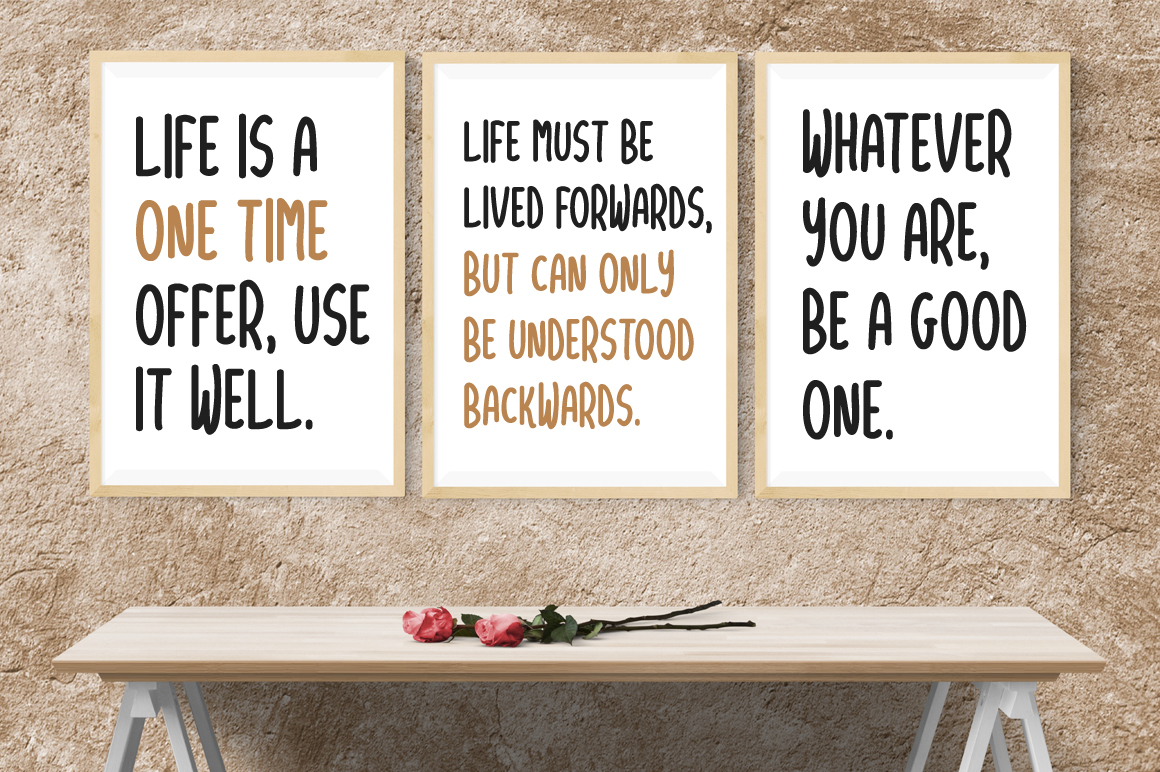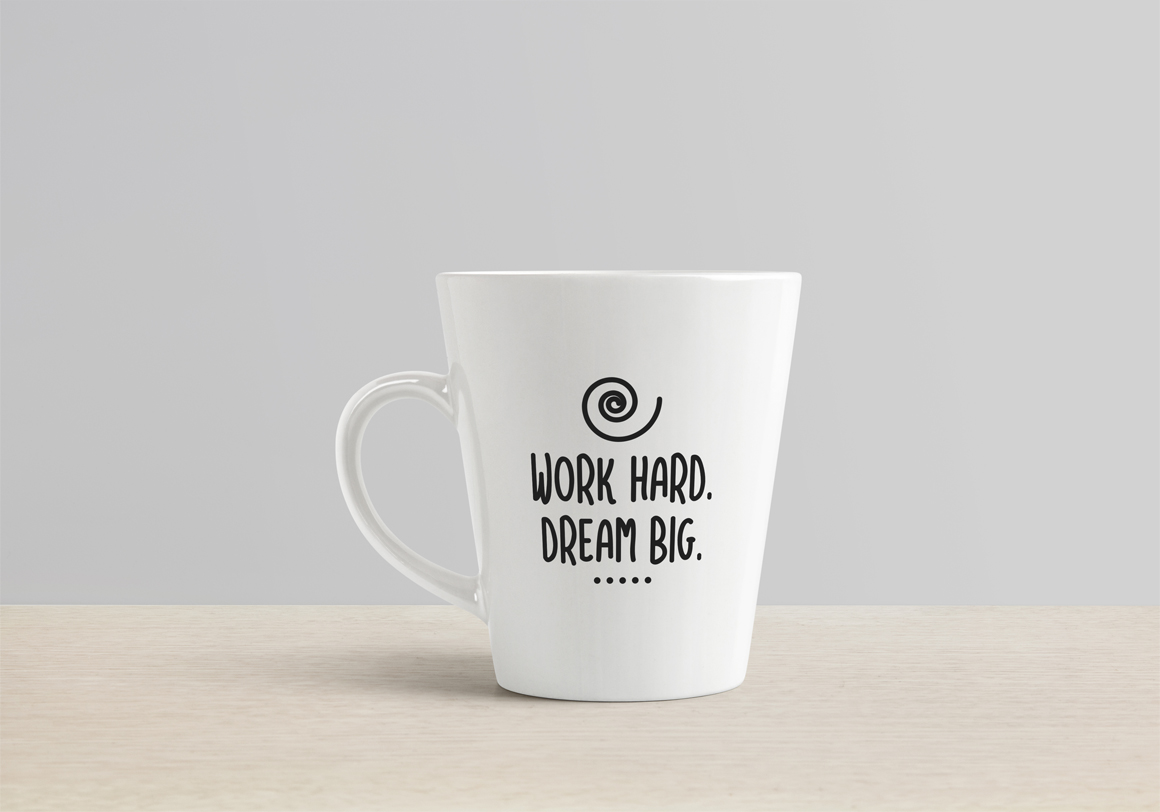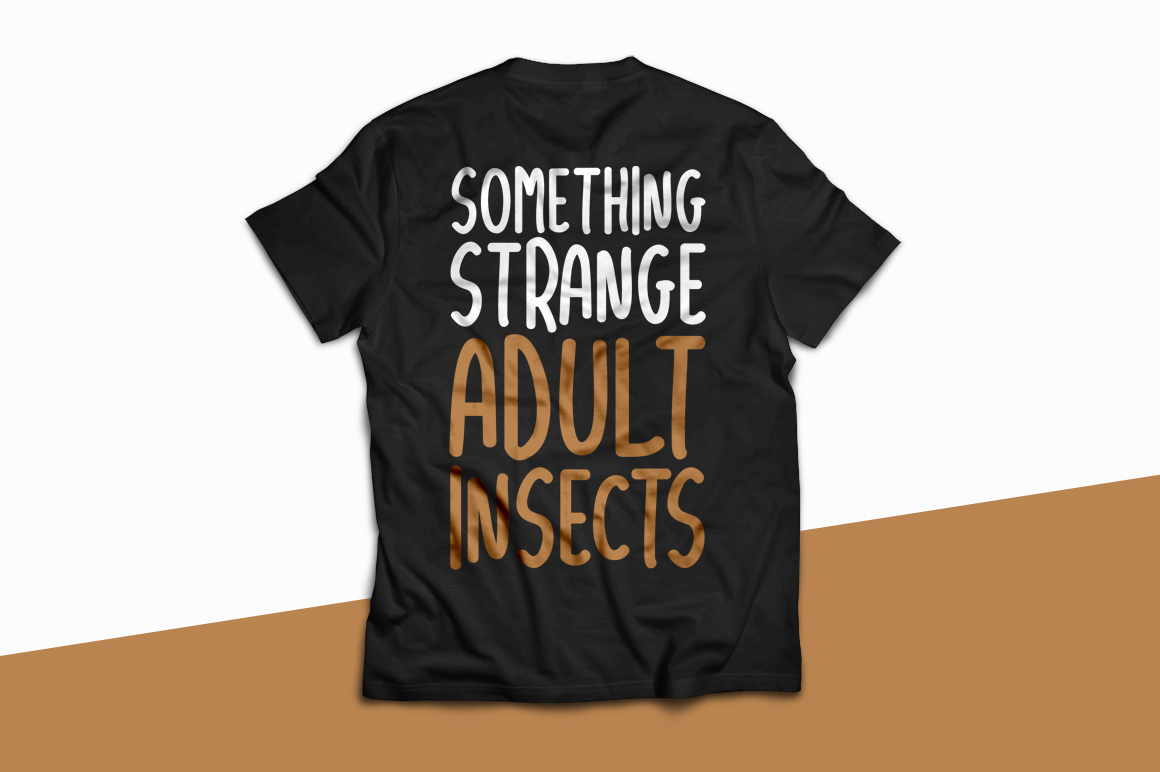
Introduction to Mandril Font
Mandril is a warm and casual sans serif font, perfect for displays and body text; this is a cute font that dances with a variable baseline.
Key Features of Mandril Font